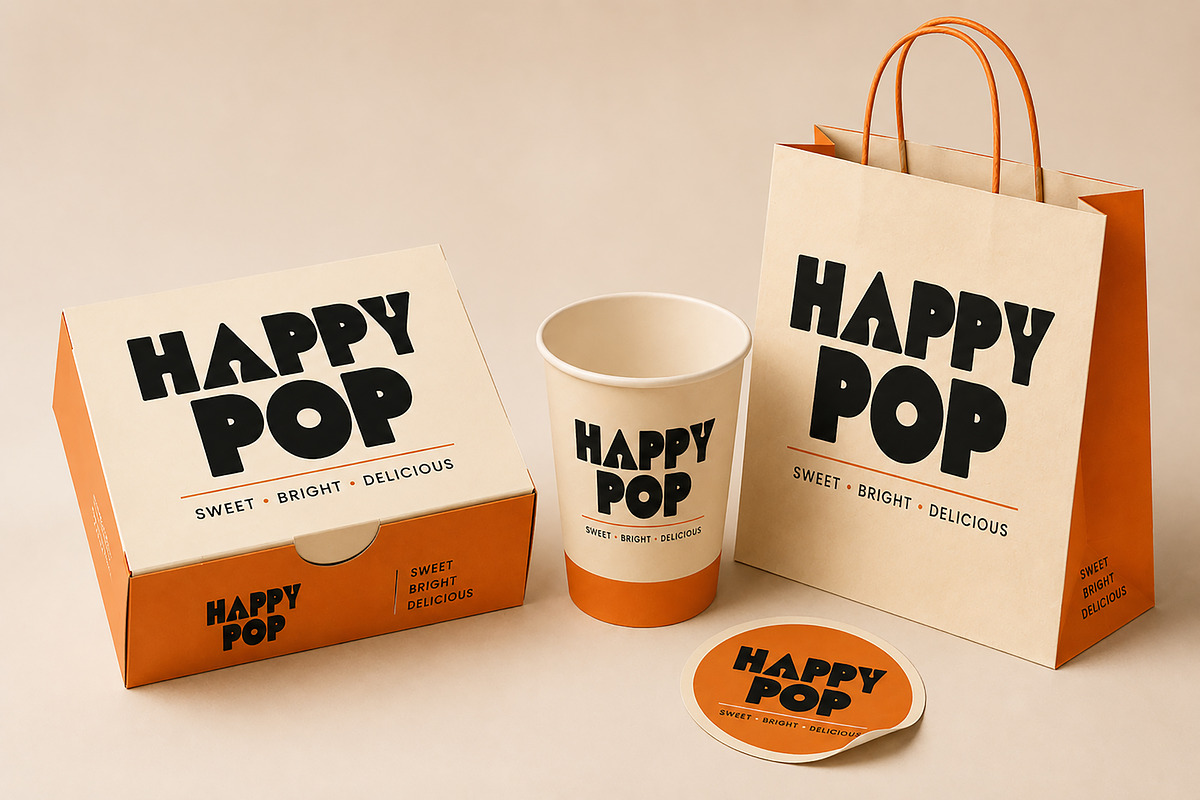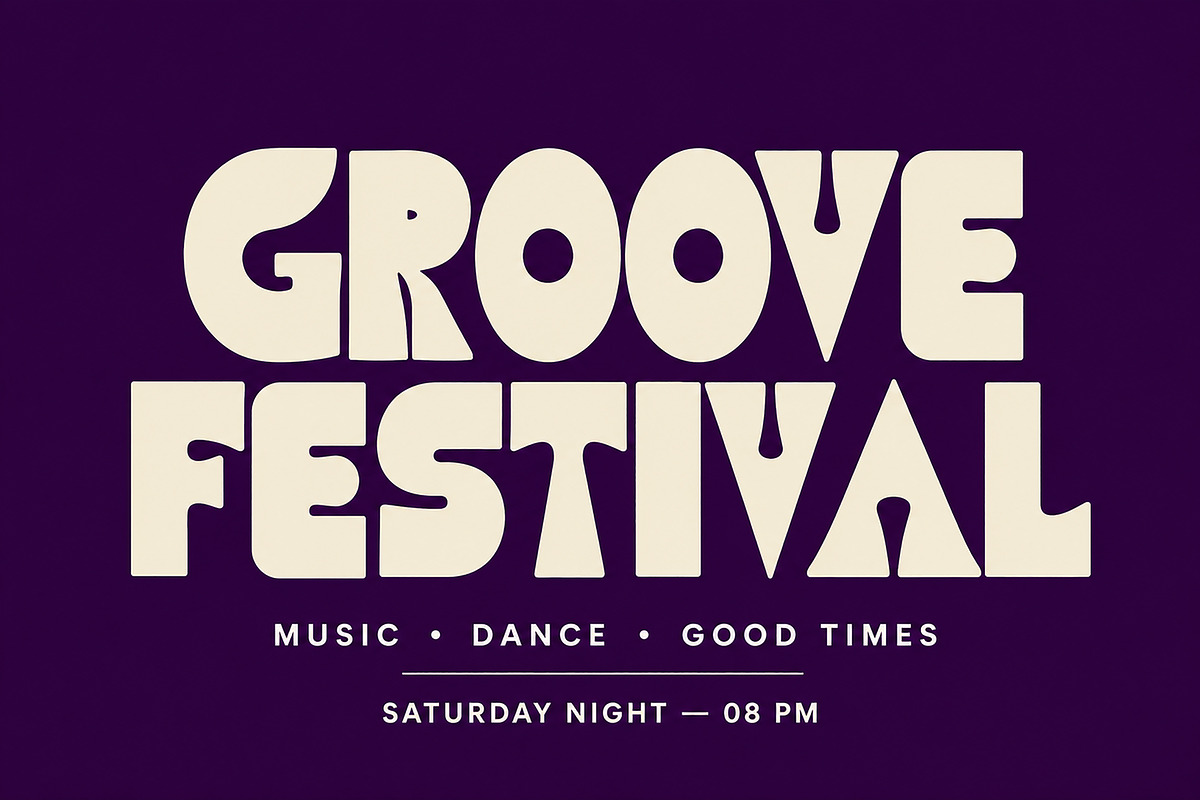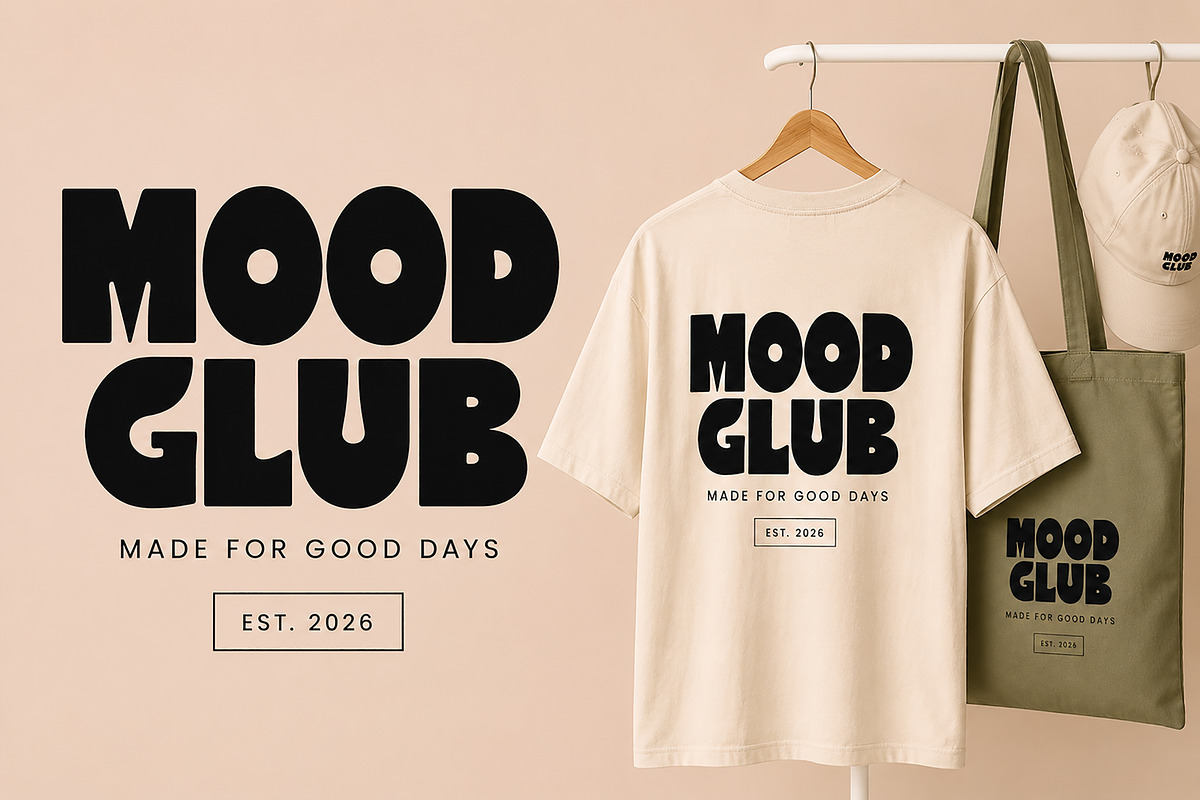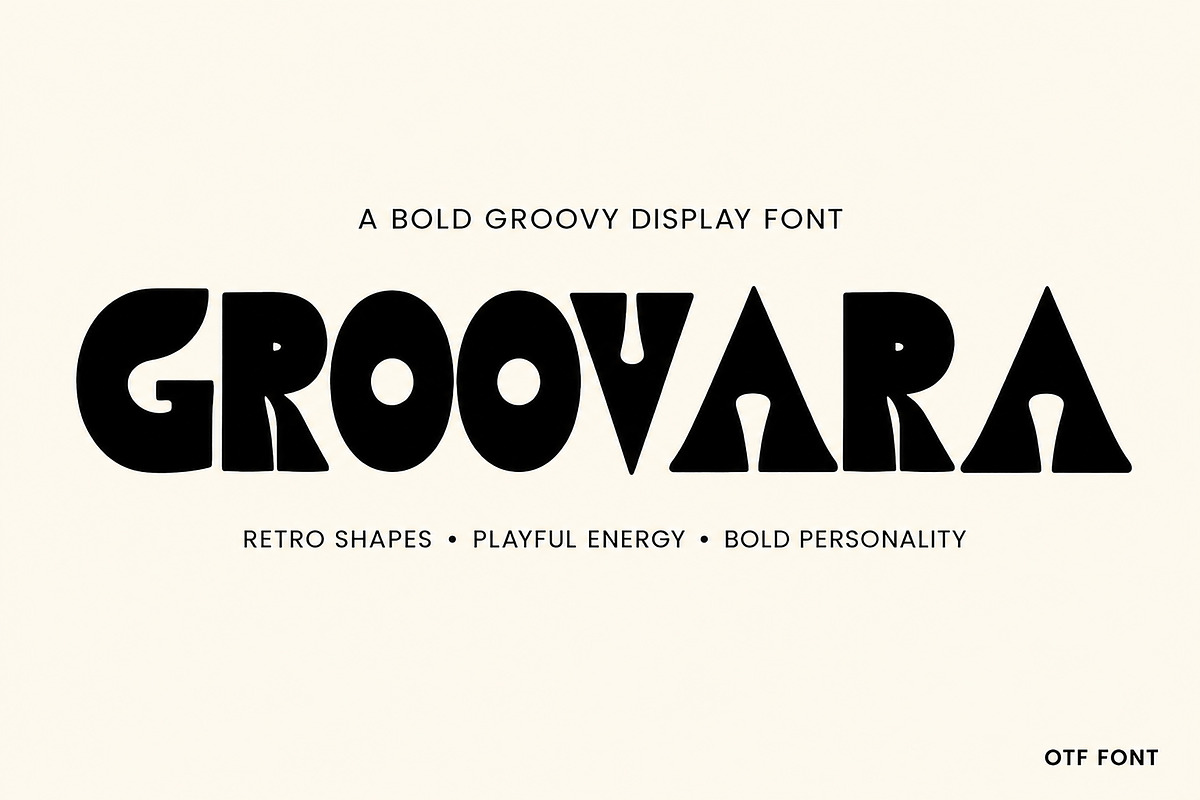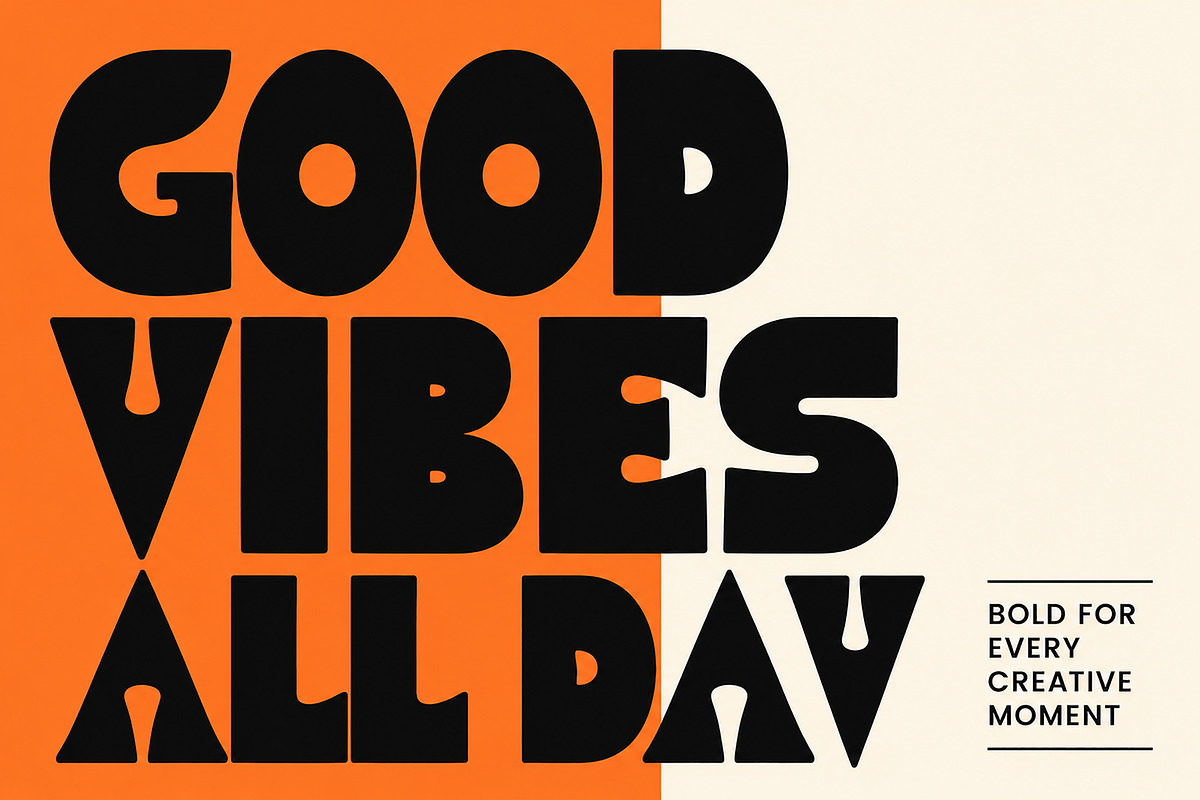
Groovara
GROOVARA – Bold Groovy Display Font
GROOVARA is a bold groovy display font inspired by retro aesthetics, playful curves, and chunky letterforms. Designed to make an instant visual impact, it features distinctive geometric shapes and unique cutout details that give every headline a fun, energetic, and memorable personality.
Whether you're creating eye-catching logos, vintage-inspired branding, product packaging, music posters, apparel designs, or social media graphics, GROOVARA delivers a strong visual presence while maintaining excellent readability at large sizes.
Its bold character makes it perfect for creative projects that need a cheerful, expressive, and confident look. GROOVARA is designed for designers who want typography to become the centerpiece of their work.
Bold Display Typeface
Retro Groovy Style
Uppercase Letters
Perfect for Large Headlines
Clean & High-Quality Letterforms